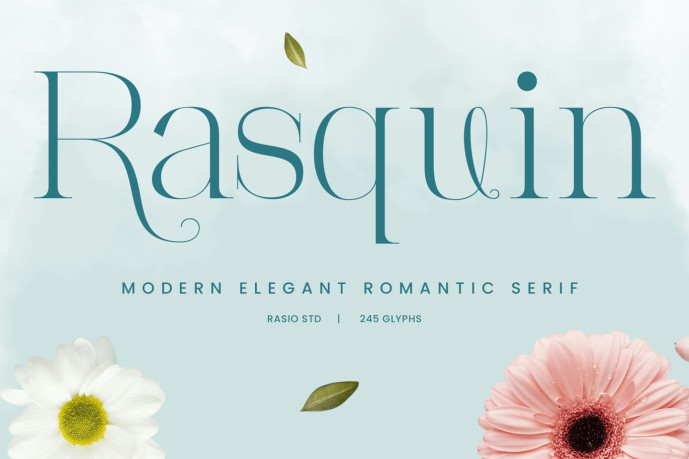
Rasquin Modern Romantic Serif Font
Rasquin Modern Romantic Serif Font is a modern elegant romantic serif typeface that combines graceful curves, refined contrast, and delicate decorative details to create a sophisticated visual identity. Designed with fashion-inspired proportions and subtle ornamental flourishes, each character delivers a luxurious appearance while maintaining excellent clarity and balance. Its elegant personality allows typography to become the focal point of any composition, making it ideal for projects that require both timeless charm and contemporary refinement. The font includes uppercase and lowercase characters, numerals, punctuation, and ligatures, providing designers with creative flexibility when building unique typographic compositions.
From branding designers, fashion houses, beauty brands, cosmetic companies, jewelry designers, wedding professionals, boutique businesses, editorial publishers, luxury packaging designers, creative studios, lifestyle brands, marketing agencies, graphic designers, and professionals seeking a modern elegant romantic serif typeface. Rasquin adapts effortlessly across a wide range of premium design applications. The harmonious blend of classic serif structure and romantic details makes it equally effective for striking display typography, memorable brand identities, elegant invitations, social media content, and carefully crafted editorial layouts that seek a distinctive and graceful aesthetic.